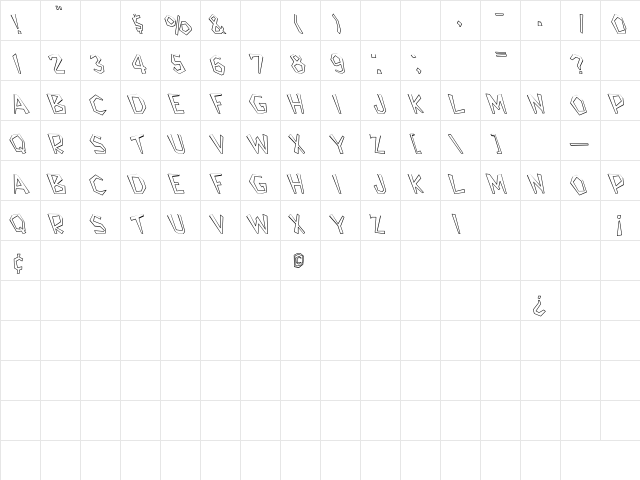
Bedrock-Light Hollow Lefty Regular
Design Context for Bedrock-Light Hollow Lefty Typeface
Bedrock-Light Hollow Lefty is a composed and adaptable typeface that performs quietly and consistently across a wide range of design contexts. Its slender proportions lend an understated elegance to any composition.